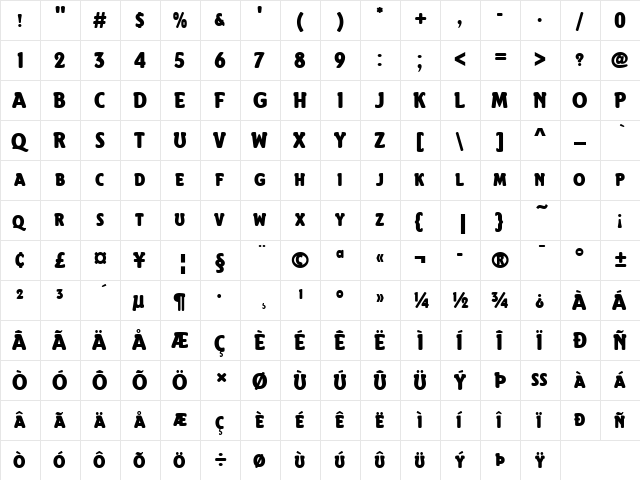
Elefont SC Regular
Design Context for Elefont SC Typeface
Elefont SC offers clean, dependable letterforms without strong stylistic allegiance, making it a practical choice for designers who need flexibility.